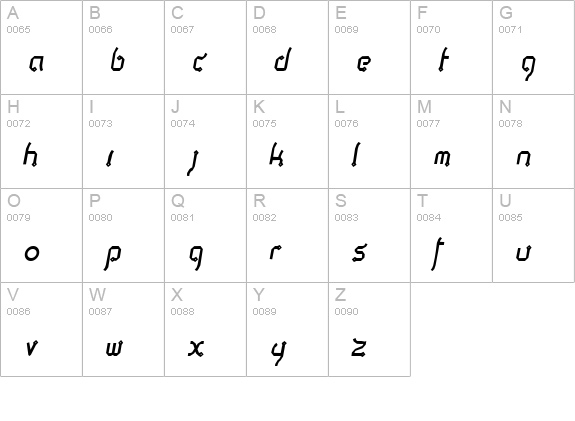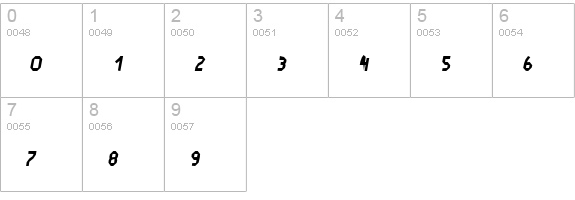
Thaipe Italic Font Details
Thaipe Italic is a distinctive, italic variant in the Thaipe typeface family \xE2\x80\x94 well suited to design and typography projects.
Thaipe Italic is a stunning and stylish font that adds a touch of elegance to any design. With its sleek and graceful curves, this font is perfect for creating eye-catching headlines, logos, and branding materials. Its unique combination of slender letterforms and subtle italic slant gives it a sophisticated and modern look that is sure to impress. Not only does Thaipe Italic possess a captivating aesthetic, but it also offers the added benefit of being free. Yes, you heard that right! This fantastic font is freely available to download at FontsMarket.com, making it accessible to designers and creatives of all levels. Whether you're a professional graphic designer or a hobbyist looking to spruce up your personal projects, Thaipe Italic is a font that won't break the bank. The versatility of Thaipe Italic makes it an excellent choice for a wide range of design applications. From elegant wedding invitations to luxurious fashion magazines, this font effortlessly adapts to any style or theme. Its clean and legible letterforms ensure readability, even at smaller sizes, making it suitable for body text as well. The attention to detail in Thaipe Italic is evident in its carefully crafted characters. Each letter is meticulously designed to maintain a harmonious balance between the thick and thin strokes, resulting in a consistent and visually pleasing appearance. The italic slant adds a sense of dynamism and movement, giving your designs a subtle yet impactful touch. Whether you're designing for print or digital media, Thaipe Italic is a font that will elevate your projects to new heights. Its timeless elegance and modern flair make it a versatile choice for a wide variety of design needs. So why wait? Head over to FontsMarket.com and download Thaipe Italic today, and let your creativity soar.